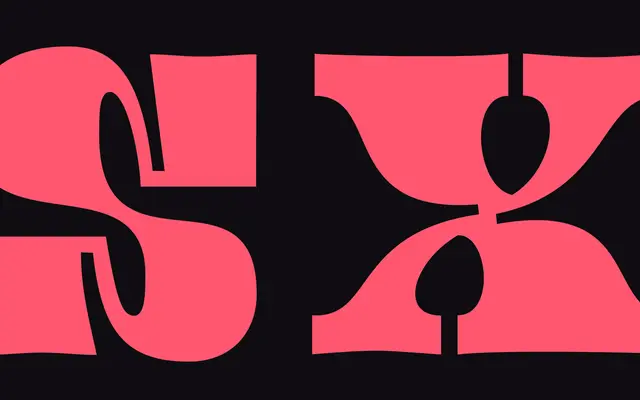
Sunshine Pro
Zetafonts · Francesco Canovaro, Cosimo Lorenzo Pancini, Solenn Bordeau · 2020
A Clarendon-style slab with an unusual variable contrast axis, where stroke contrast inverts at light weights and intensifies at heavy weights.
Originating as part of Zetafonts' Quarantype collection, designed as a response to the Covid-19 pandemic, this typeface extends Francesco Canovaro's original Sunshine design. Its defining characteristic is a contrast axis that reverses in the Light weight, flattens near Regular and then climbs sharply through Bold and Heavy. A variable font covers the full weight range, allowing precise positioning across the design space. Available free for personal and commercial use across 108 languages in Latin and Greek scripts.
Described explicitly as a Clarendon-style font with variable contrast across the weight axis, placing it firmly in the slab serif tradition with its bracketed serifs and modulated stroke contrast.